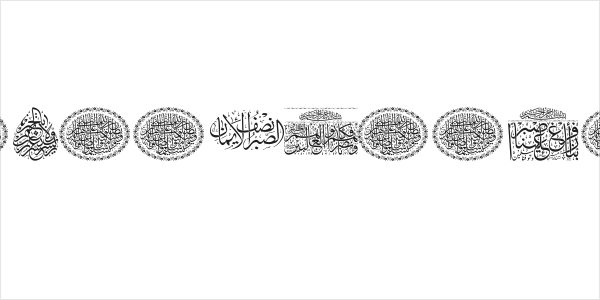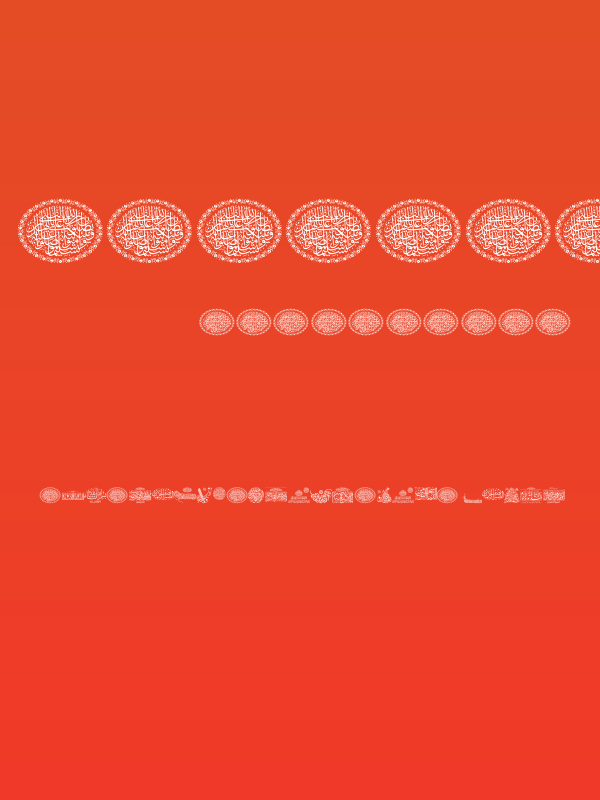
Aayat Quraan_037 Font
Aayat Quraan_037 Description
Ornate Arabic calligraphy with intricate decorative elements, featuring religious text and elaborate flourishes, primarily in oval medallions and complex script forms.
| Overall Style | Decorative, Traditional, Religious |
| Use Case | Decorative headings, religious artwork, ceremonial documents |
| Proposed Projects | Religious publications, ceremonial documents, Islamic art, decorative borders, certificates. |